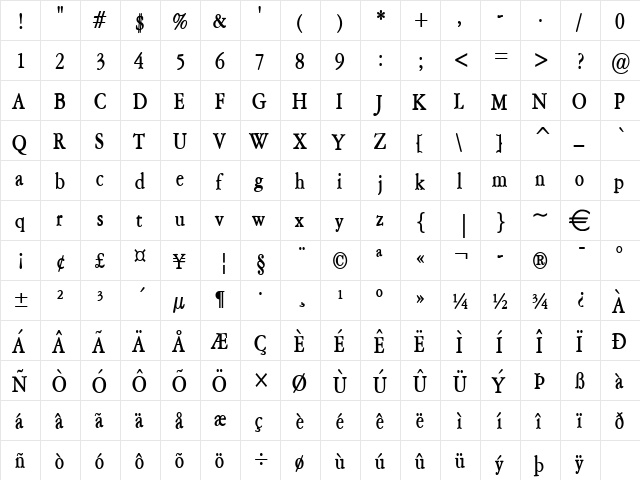
AmethystThin Bold Font Preview
AmethystThin Bold
AmethystThin Bold Font Details
Design Context for AmethystThin Typeface
AmethystThin offers clean, dependable letterforms without strong stylistic allegiance, making it a practical choice for designers who need flexibility. Its bold stroke weight gives it real presence on the page.
Pro Tip: Use AmethystThin in both headline and body roles to test its range before committing to a single application.